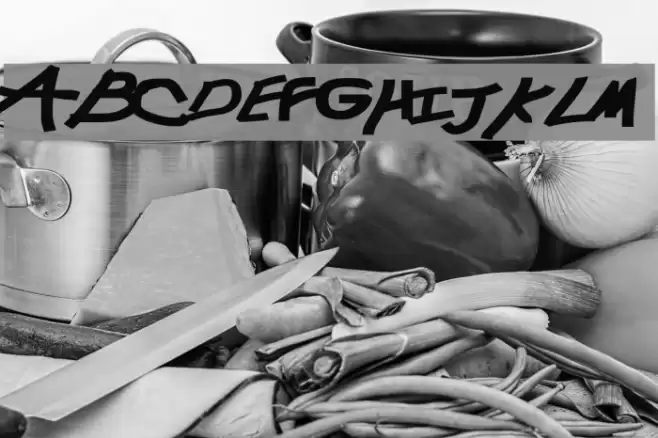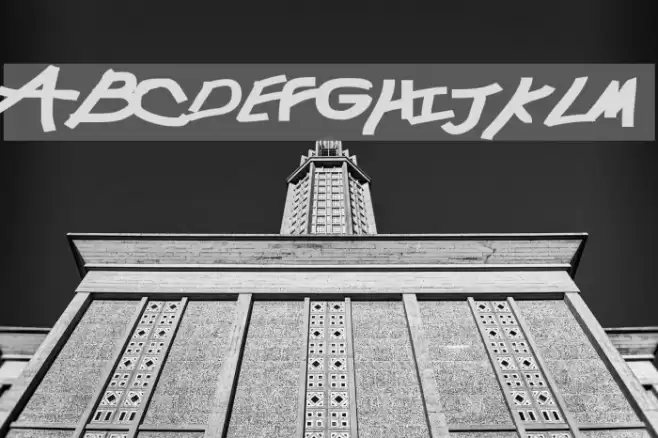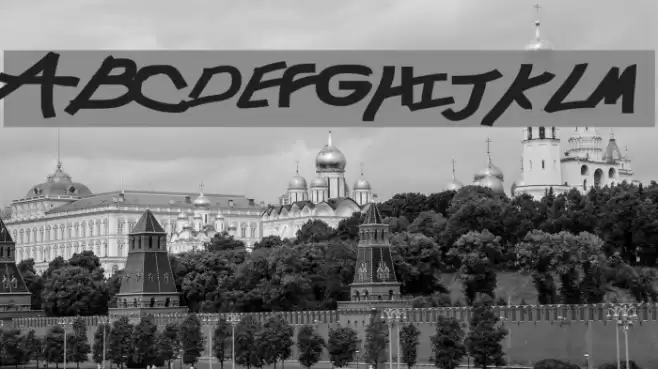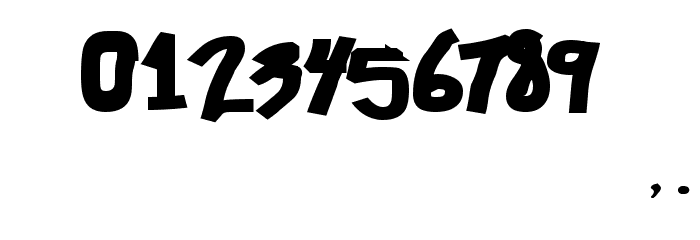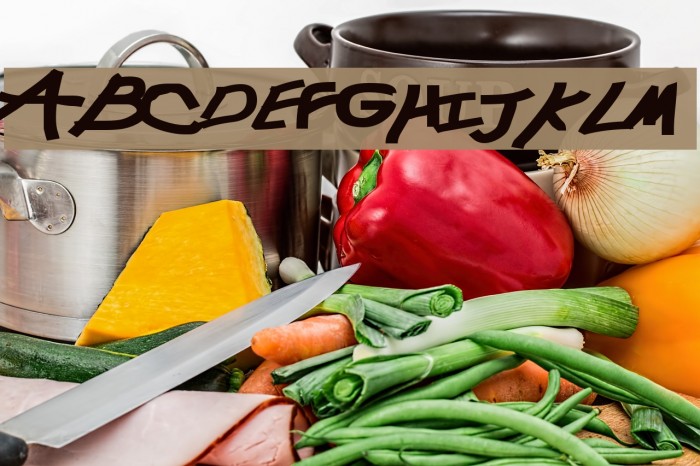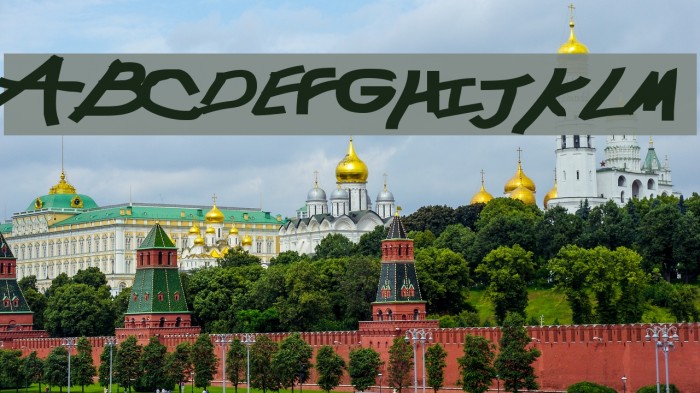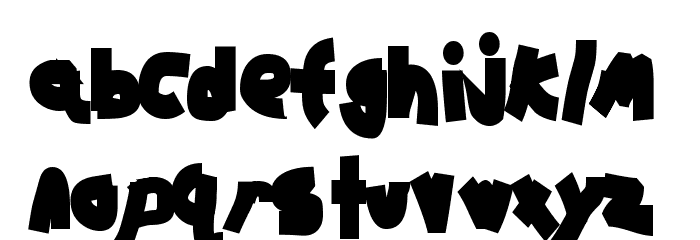
Chunkmuffin Black Font
Chunkmuffin Black Description
This font features a bold and dynamic style with a playful and energetic appearance. The characters are thick and have a slightly irregular, hand-drawn quality, giving them a unique and lively look. The uppercase and lowercase letters are distinct, with exaggerated curves and angles that create a sense of movement. The numbers and special characters maintain this whimsical style, making the font suitable for creative and informal designs. Its boldness ensures high visibility, making it ideal for eye-catching headlines or titles.
A bold, playful font with a hand-drawn, dynamic style from Quirky fonts.
- Proposed Projects: Ideal for posters, children's books, comic strips, and playful branding.
- Overall Style: Playful, Energetic, Hand-drawn
- Use Case: Headlines, Posters, Branding